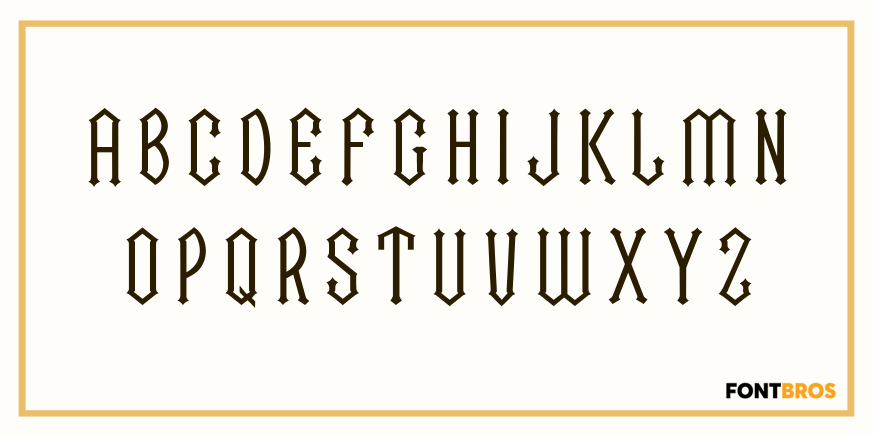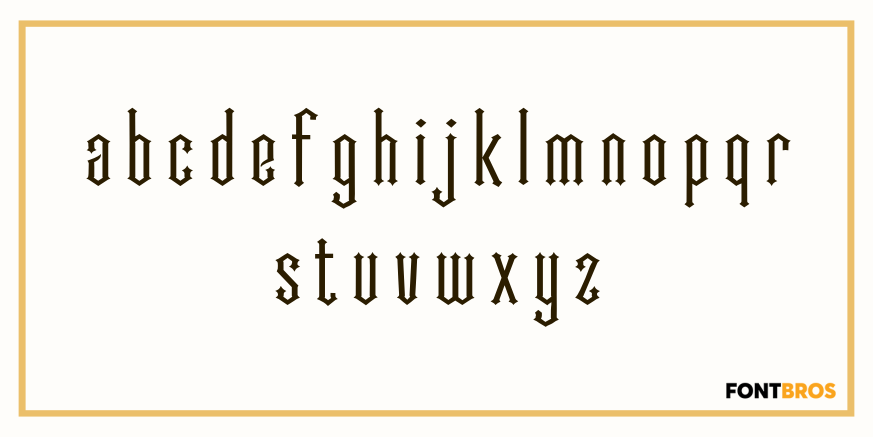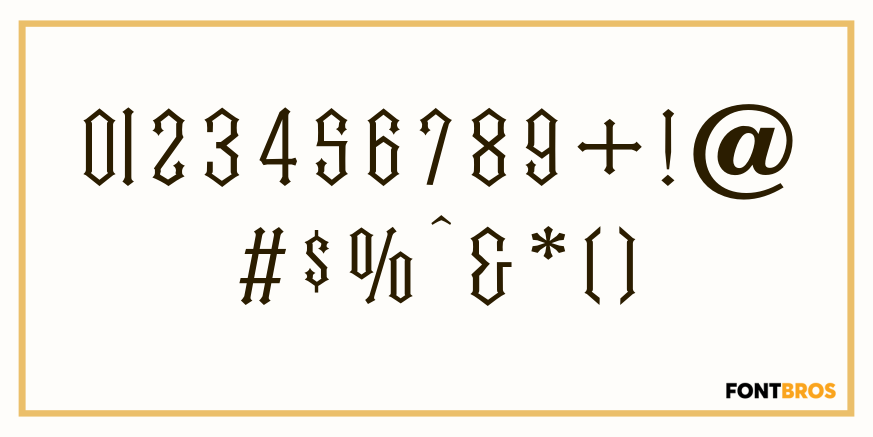
Cathedral
This font was designed as an experiment in simplfying the Blackletter. We never showed it in the Solotype catalog, so it didn't get much use.